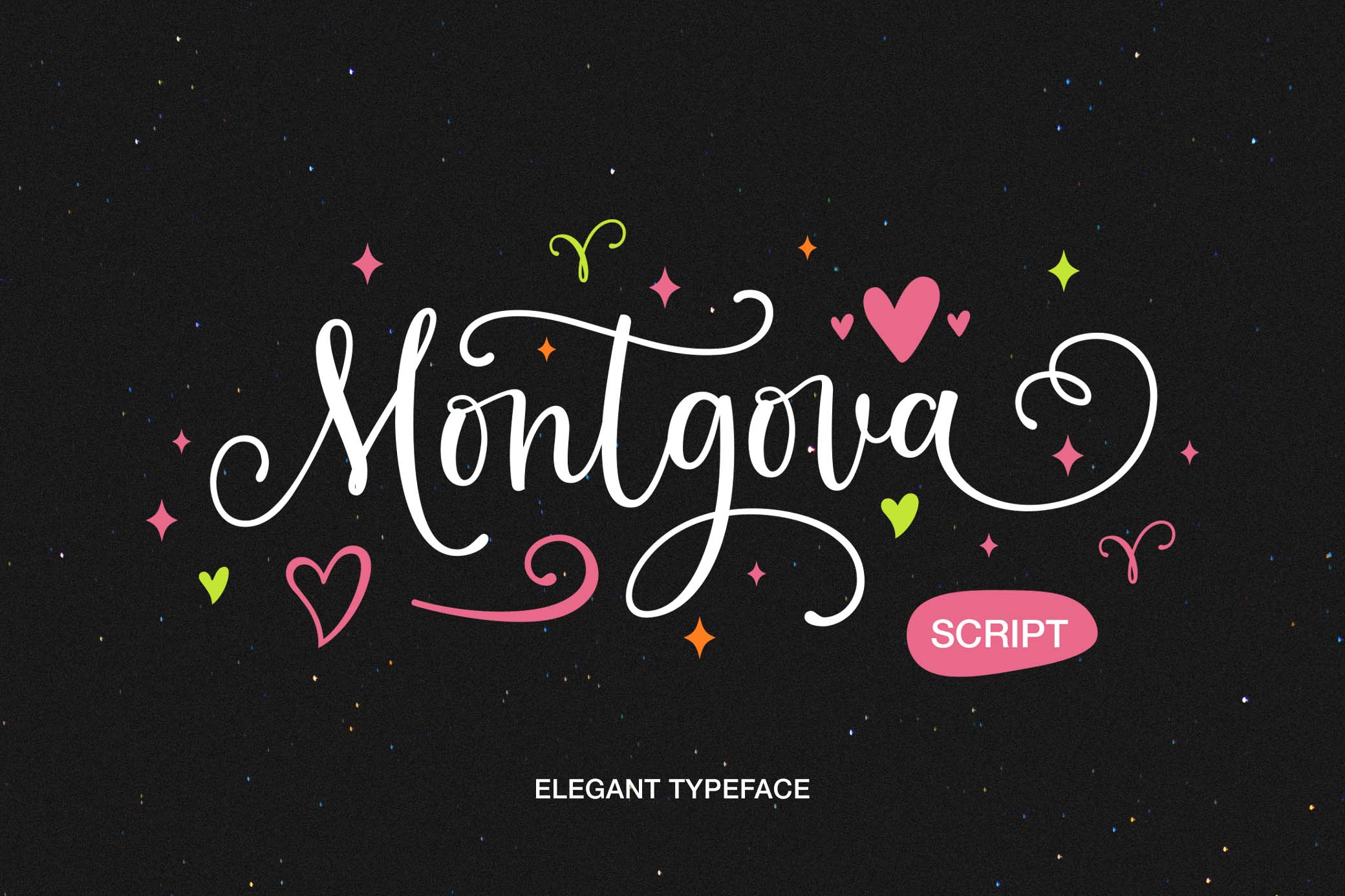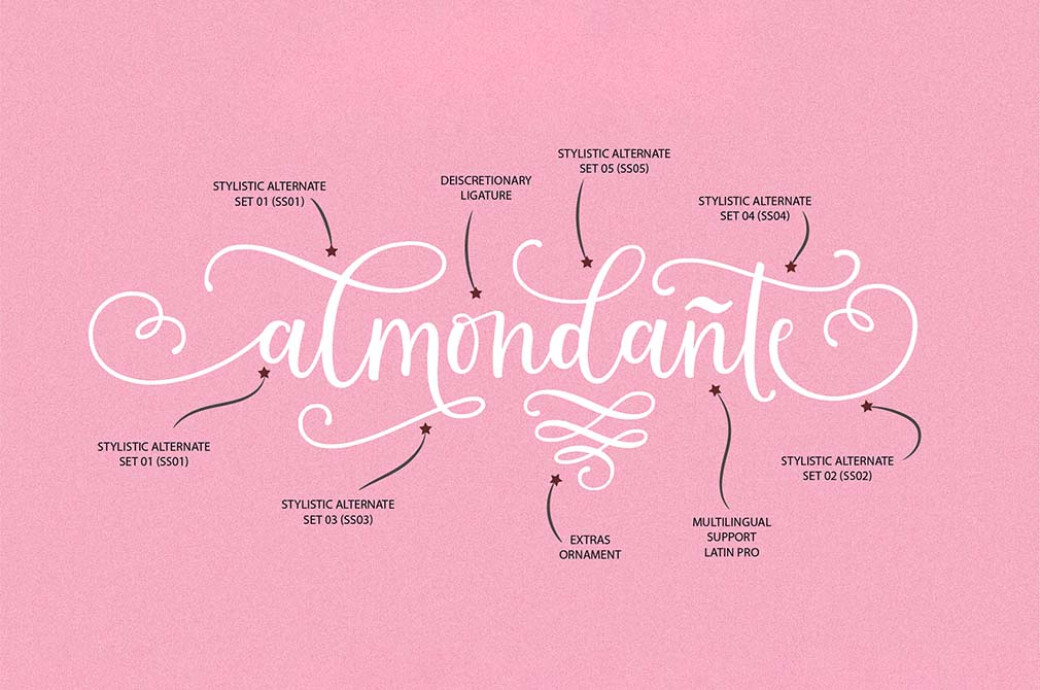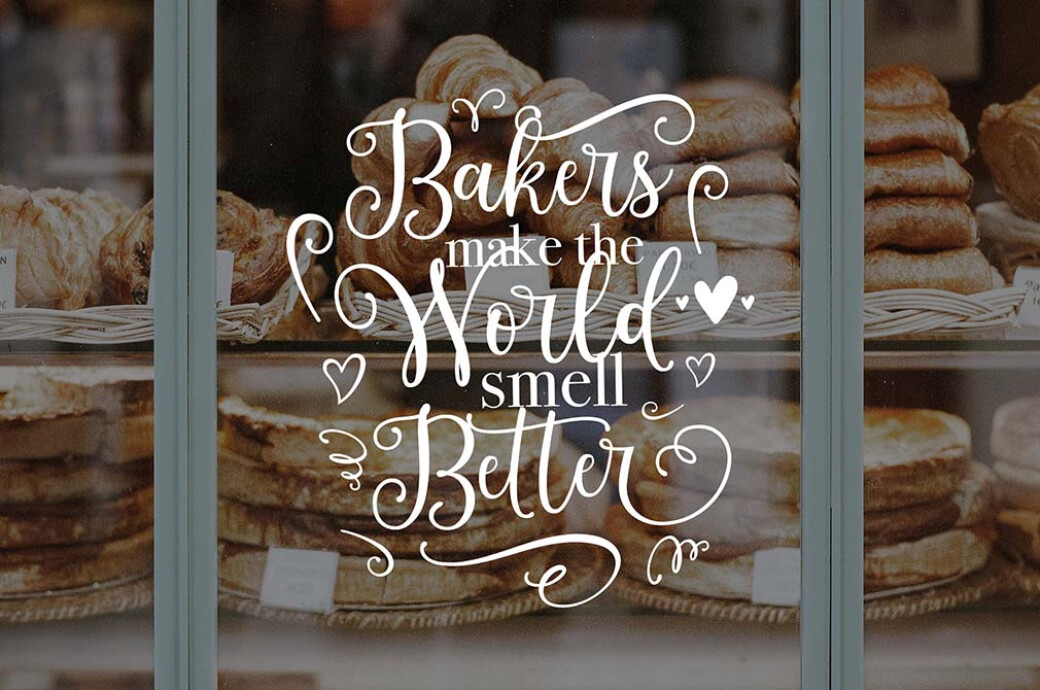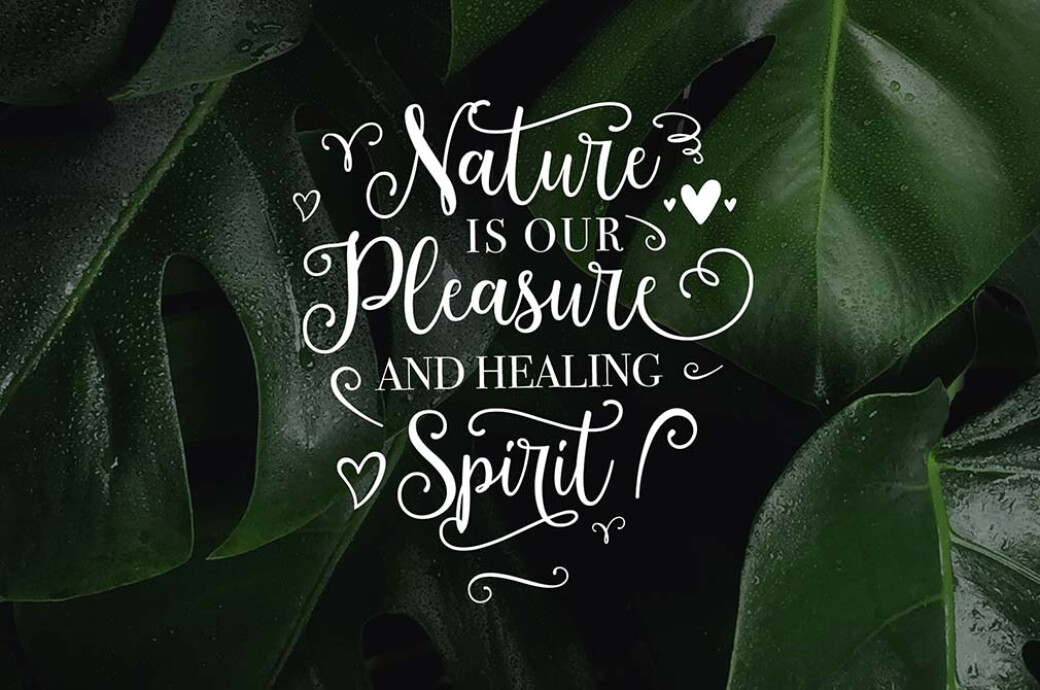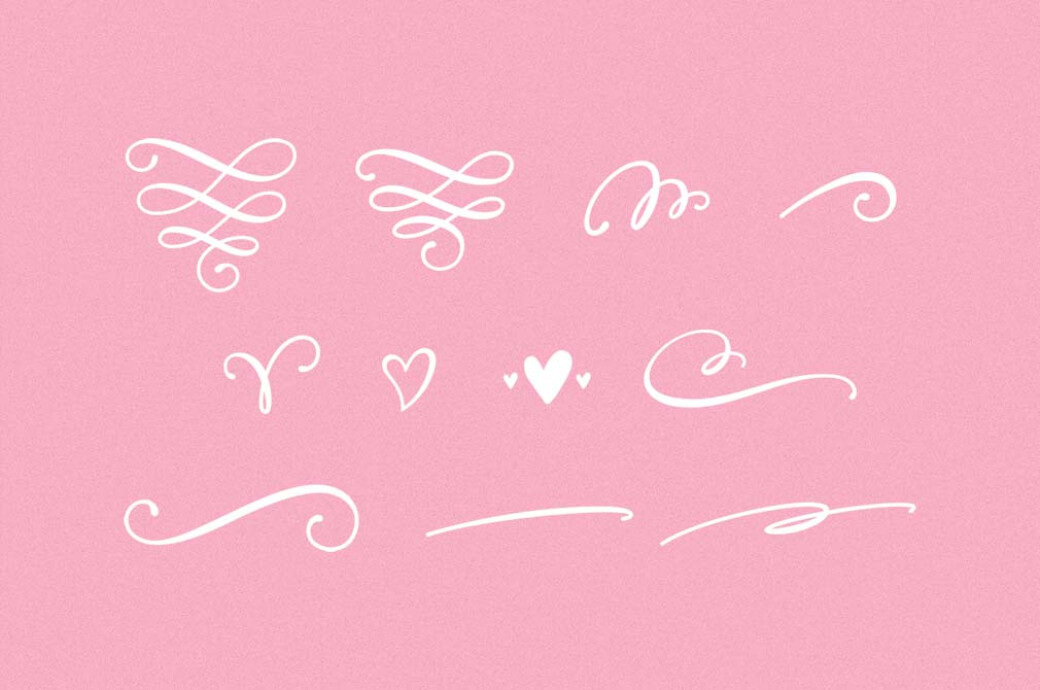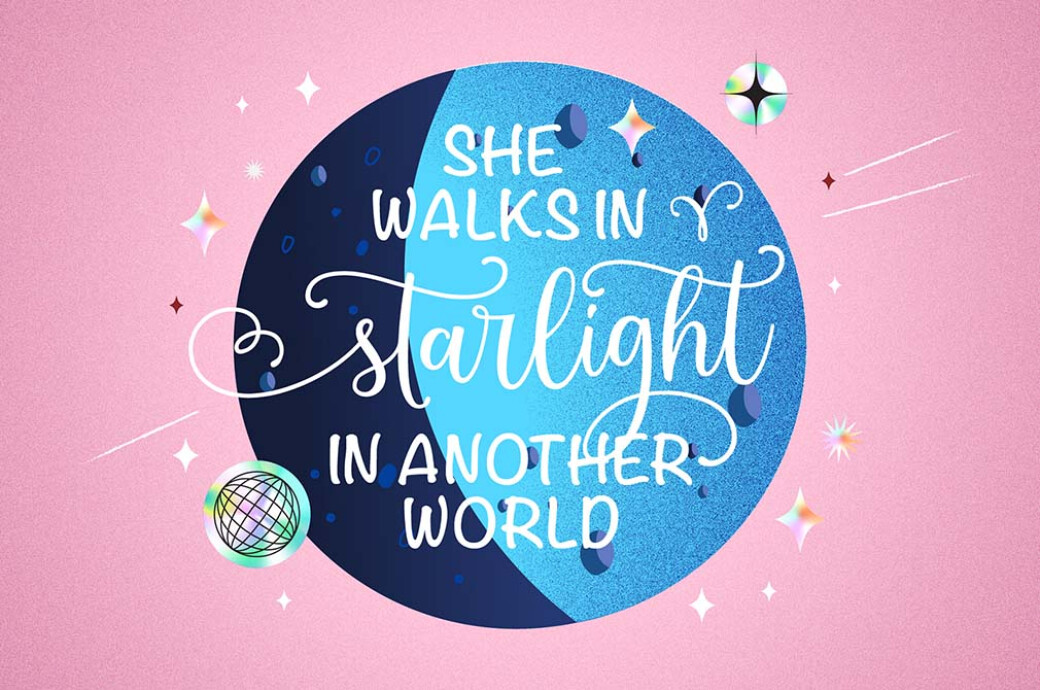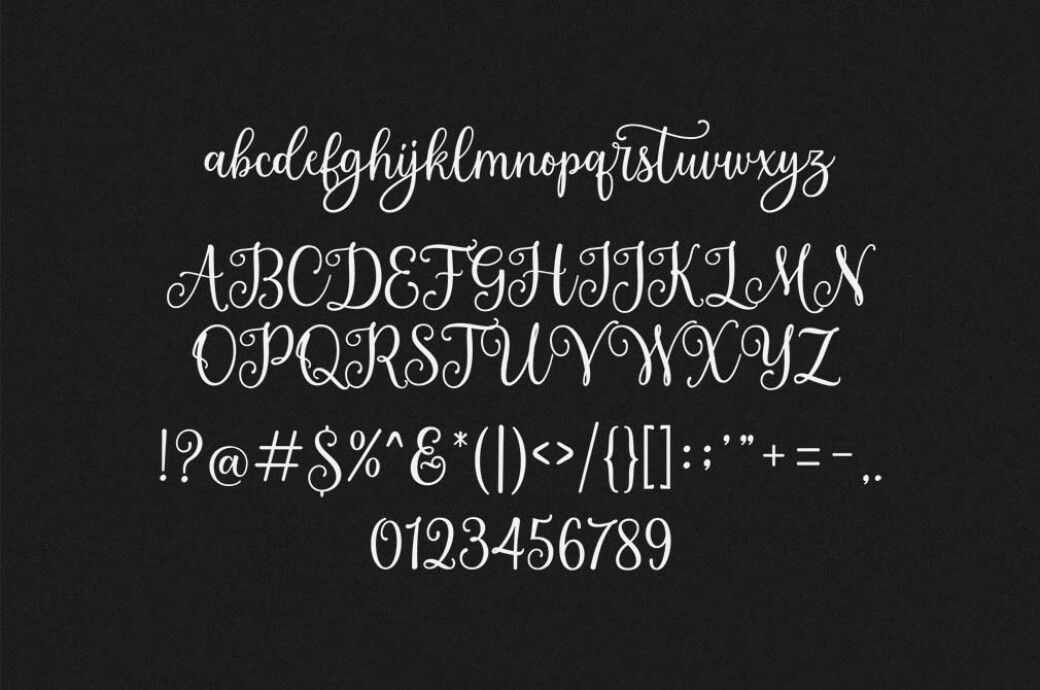
Montgova Script Font
Signing a romantic card or a love letter demands a proper font. Something like Montgova will work perfectly: playful curls and a flirty handwriting style.Montgova Script is a lovely calligraphic font with adorable ornaments. It includes more than 120 OpenType alternative characters and ligatures, allowing you to mold your type design any way you like. The font also comes with fancy bonus ornaments. Despite the most prominent use cases, like cards or prints, Montgova will ideally fit various packaging and branding projects, especially for a florist shop, bakery, or confectionery.